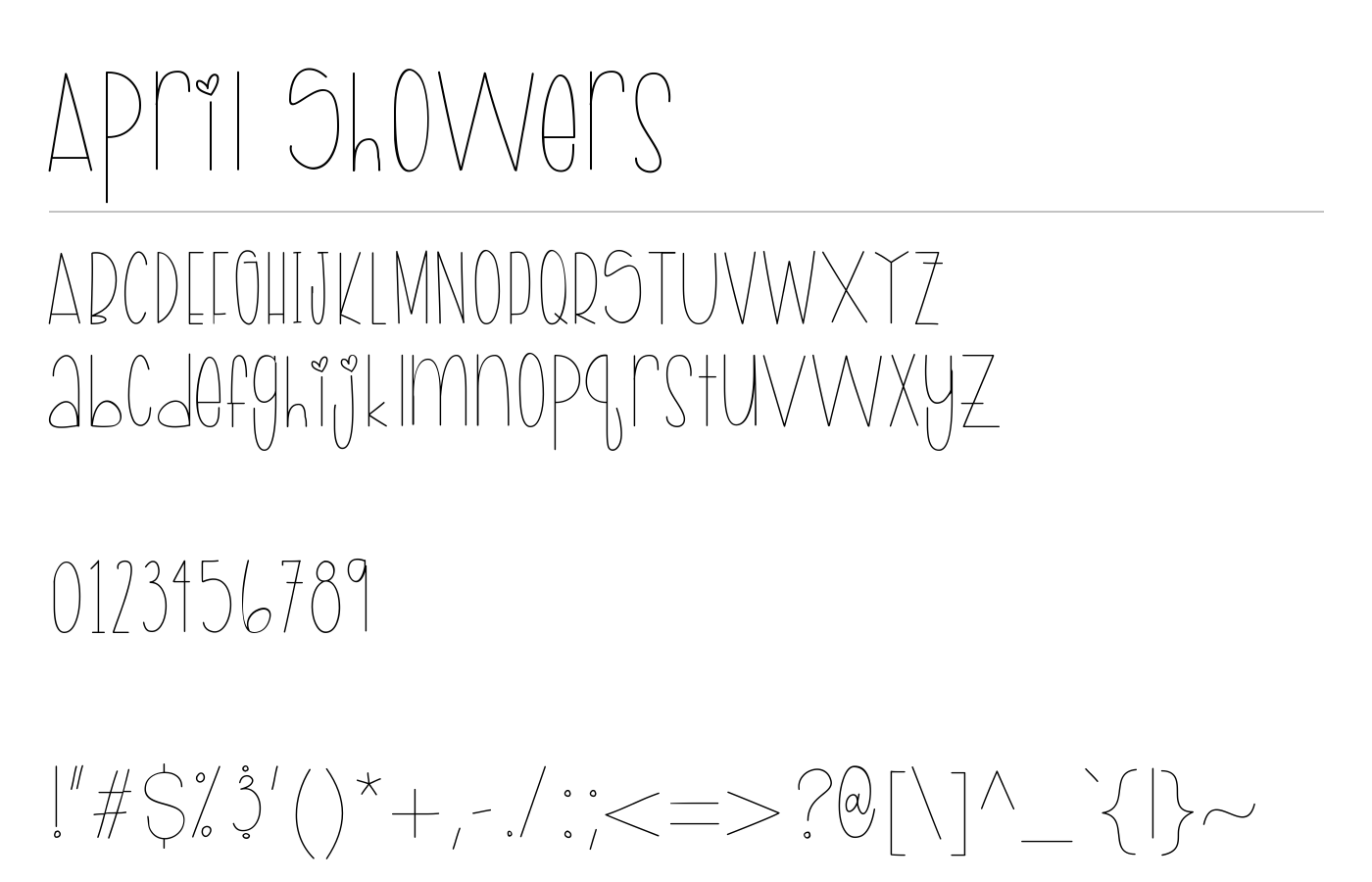
April Showers is a delicate, hand-drawn sans serif font with a playful and whimsical feel. Its thin, narrow strokes and tall x-height, combined with unique heart-shaped dots on the "i" and "j," give it a charming, casual personality perfect for creative, youthful designs. This font works best for informal invitations, greeting cards, and lighthearted branding where a friendly and approachable look is desired.
April Showers Font
About April Showers Font